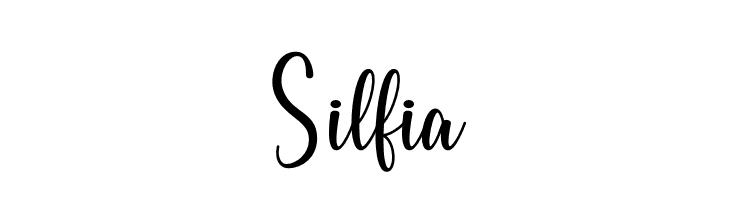
A playful, casual handwritten font with tall, narrow letterforms and consistent strokes.
An elegant script font with flowing, interconnected letters and intricate flourishes.
An elegant, flowing script font with thin, delicate strokes and graceful curves.
An elegant, flowing script font with a handwritten appearance.
A playful and elegant script font with flowing, connected letters.
An elegant script font with intricate, flowing letterforms and decorative swashes.